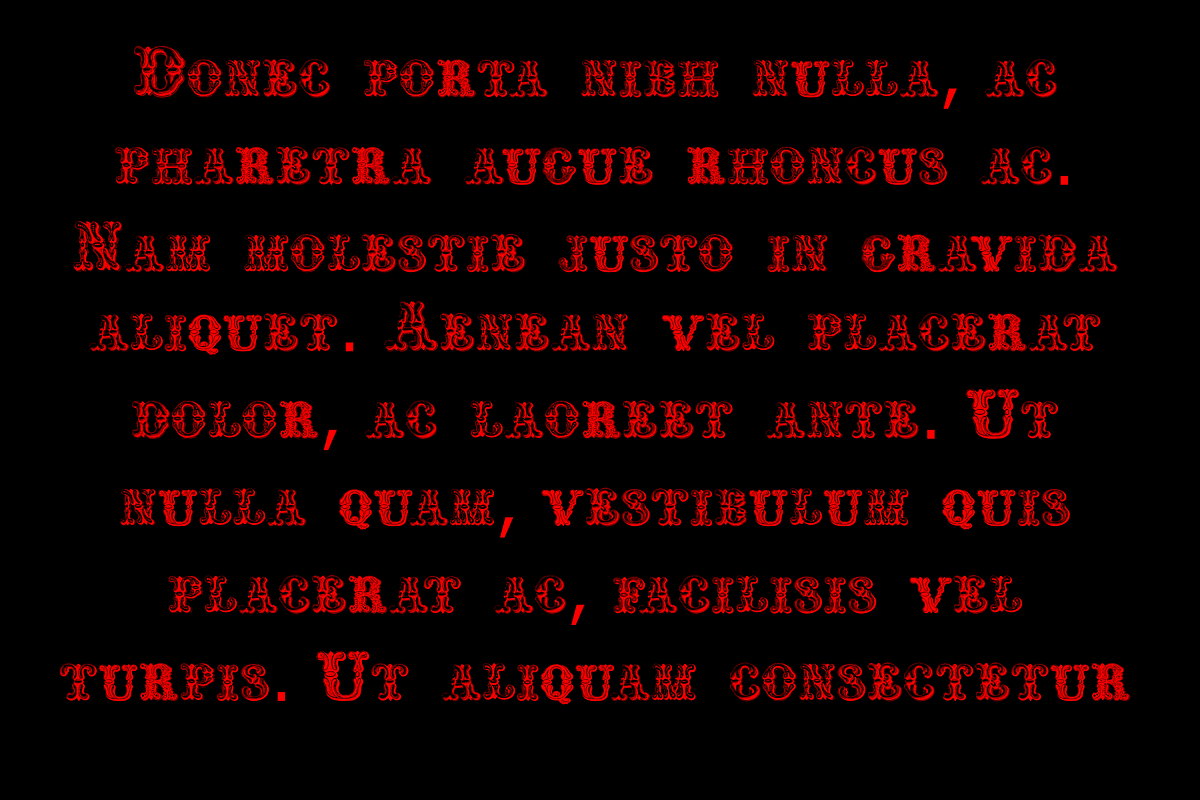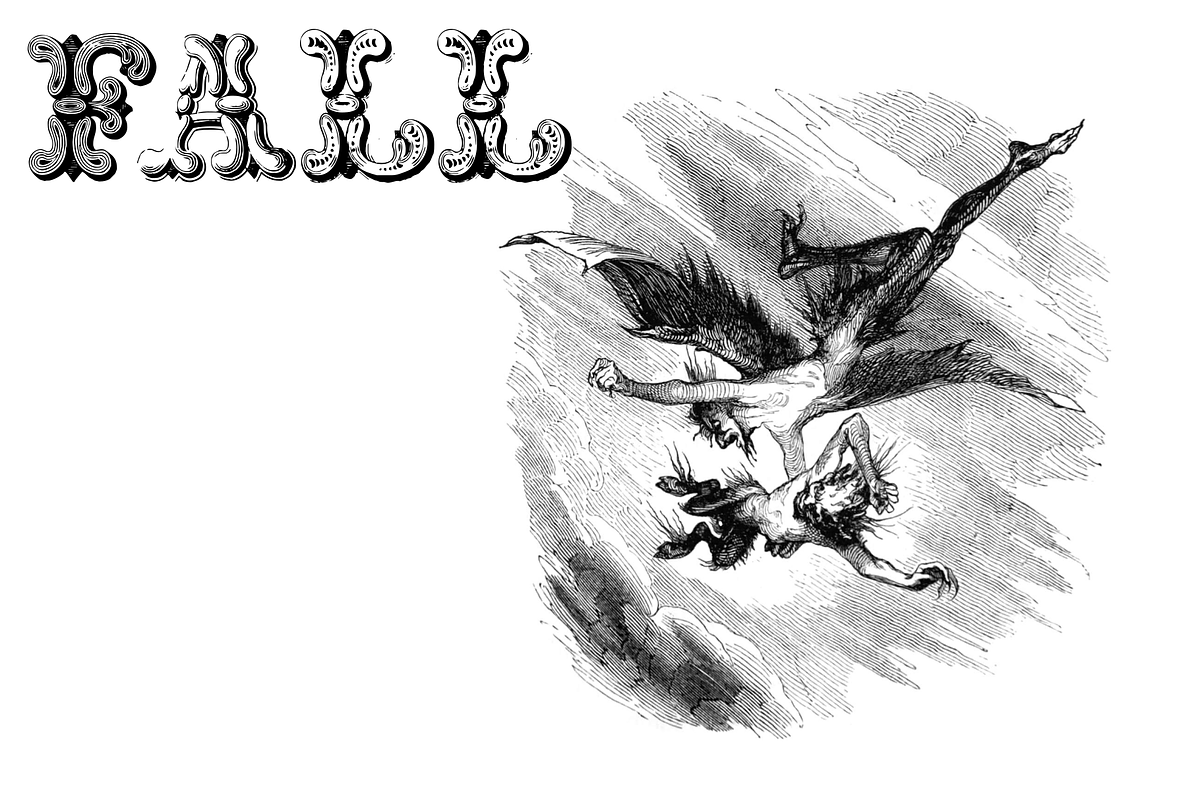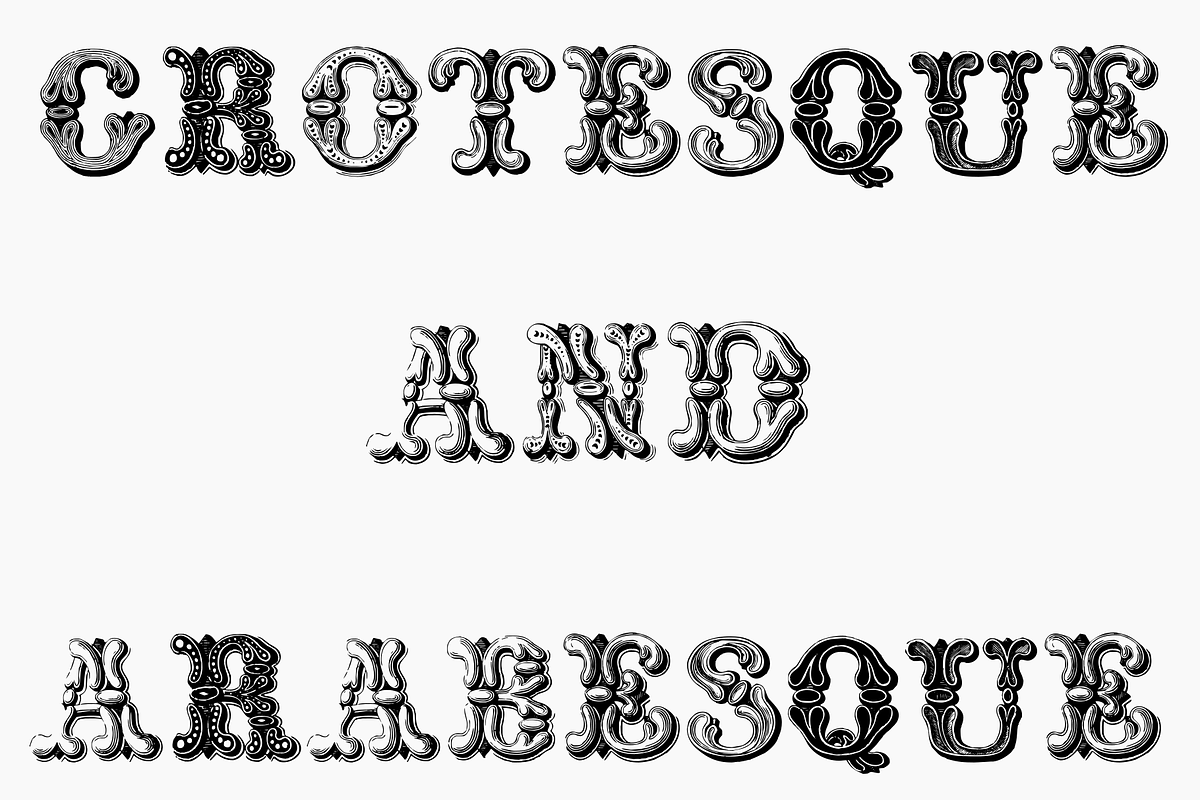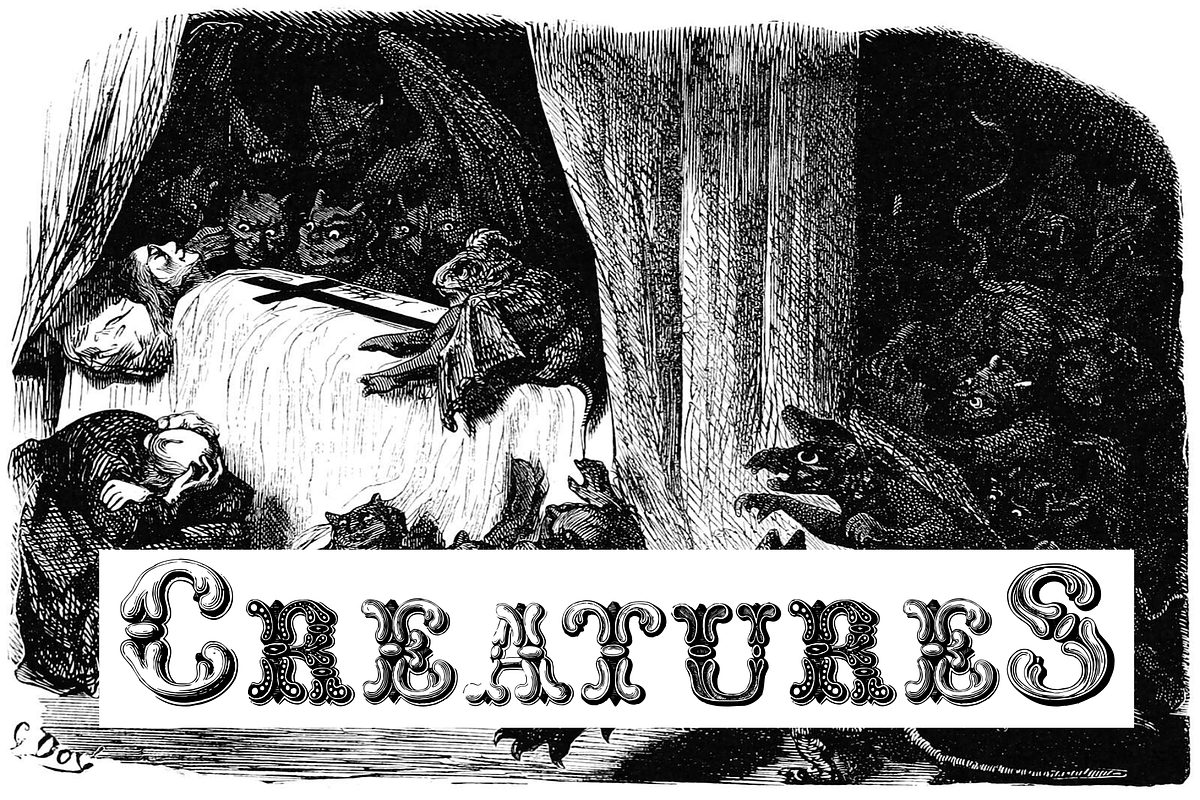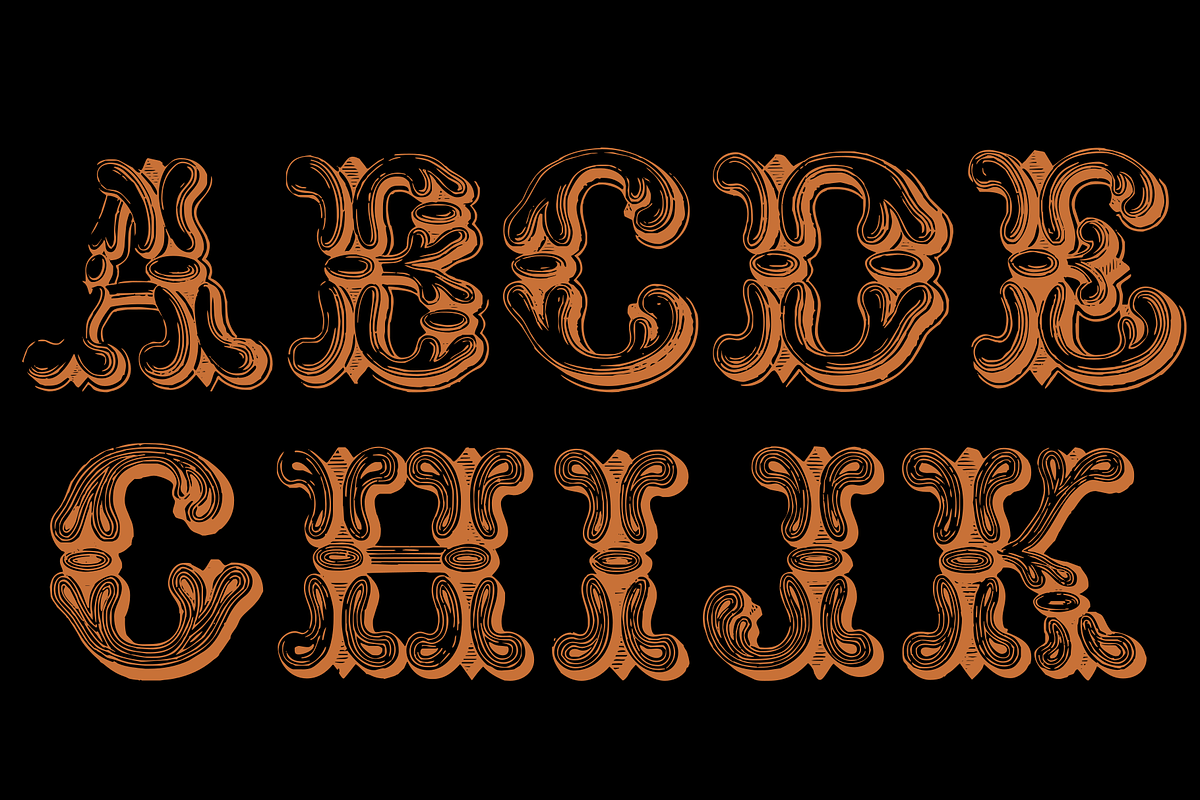
Grotesque And Arabesque
Grotesque and Arabesque is a a vintage victorian font... Distressed and antique, use this font in display purposes for a stylized type design.